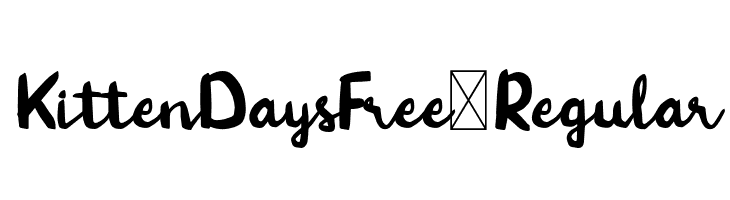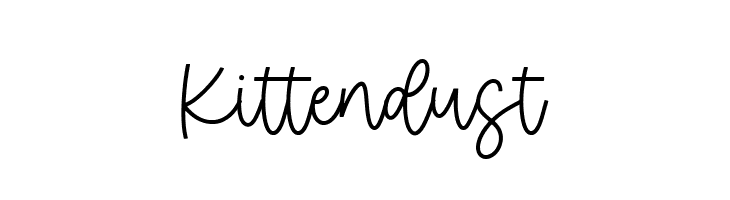
A playful and elegant monoline script font with smooth, flowing lines.
A playful font with paw prints on bold, rounded letters, perfect for pet-related themes.
A playful, slanted monoline font with a handwritten feel and decorative cat silhouettes.
A playful, handwritten font with a whimsical and friendly style.
A playful, handwritten font with smooth, flowing lines and a casual style.
A playful, bold font with exaggerated curves and thick strokes, ideal for creative projects.